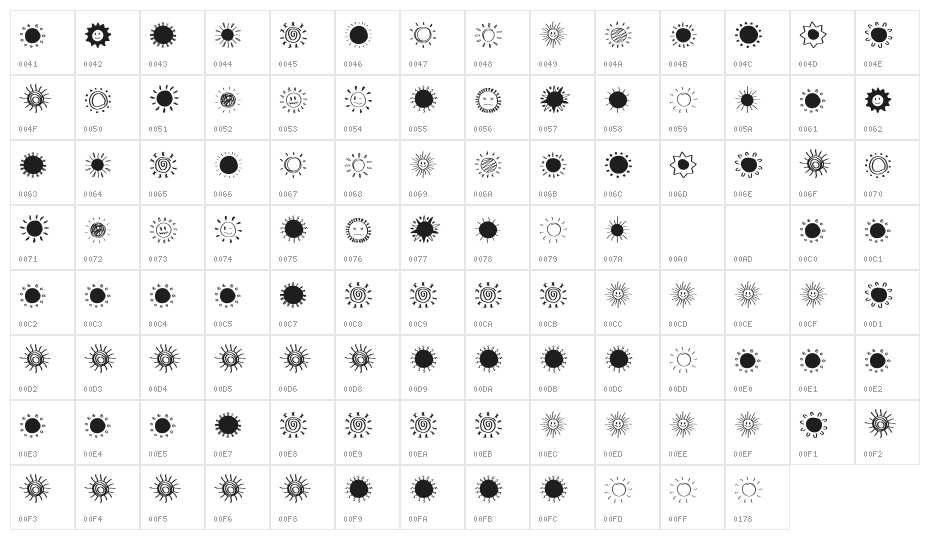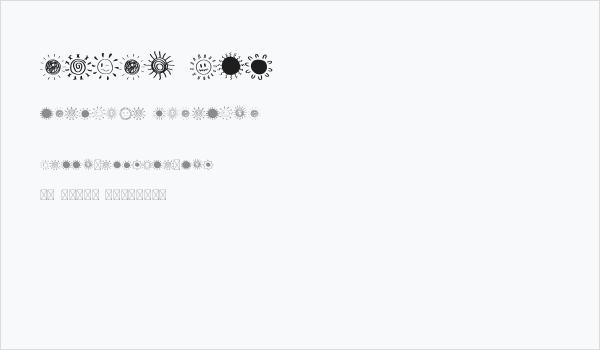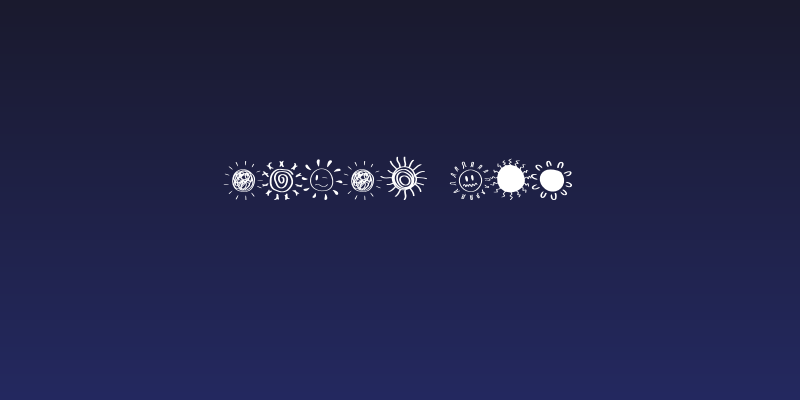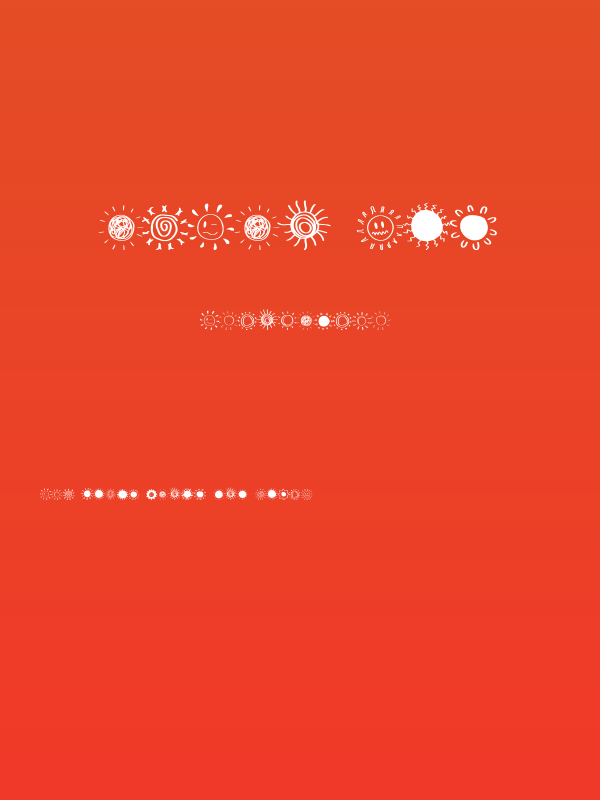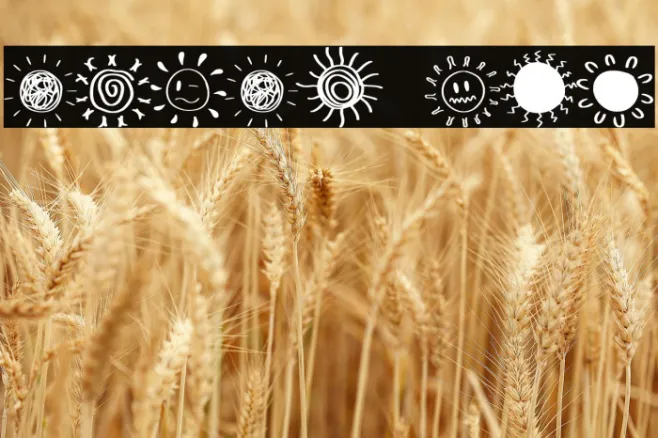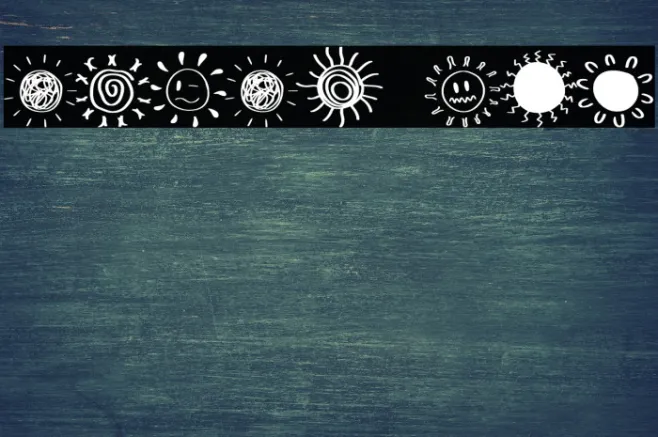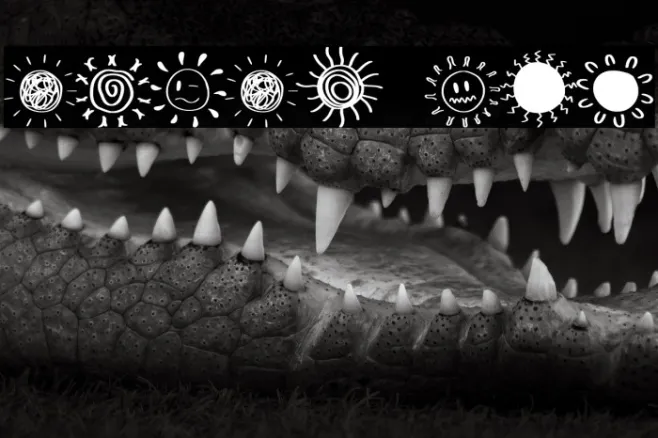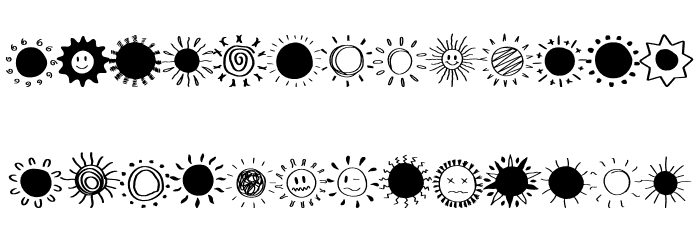
Retro Sun Font
Retro Sun Description
This is not a valid font. The image contains a series of decorative sun illustrations and placeholder boxes, which do not represent a traditional alphabet or numeric characters. The design elements are playful and varied, featuring different styles of sun icons with smiling faces, abstract patterns, and geometric shapes. These elements are more suited for decorative purposes rather than typographic use.
| Overall Style | Playful, Decorative |
| Use Case | Decorative elements, Graphic design |
| Proposed Projects | These sun illustrations could be used for decorative borders, children's book illustrations, or playful graphic design projects. |